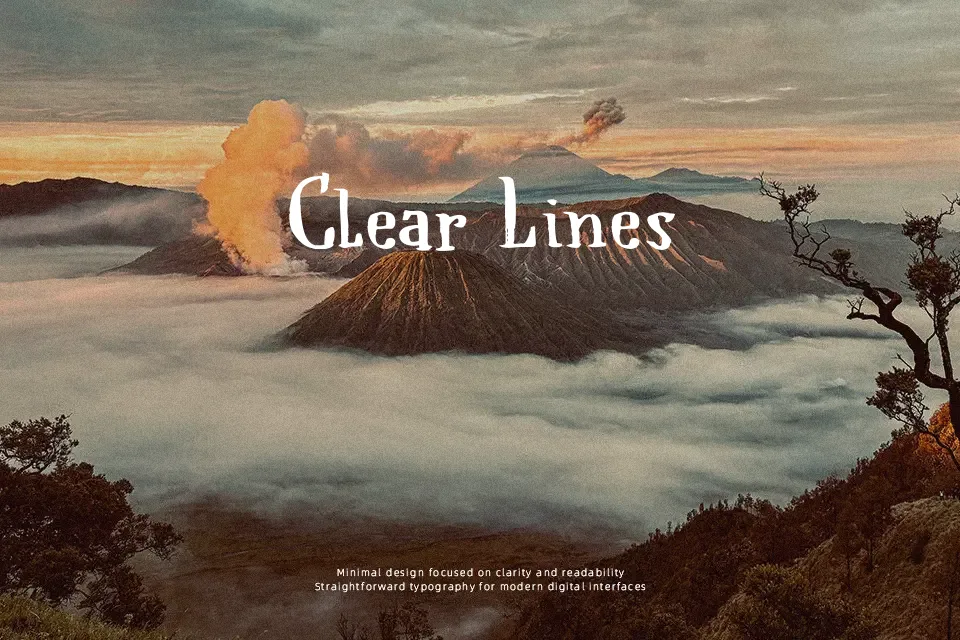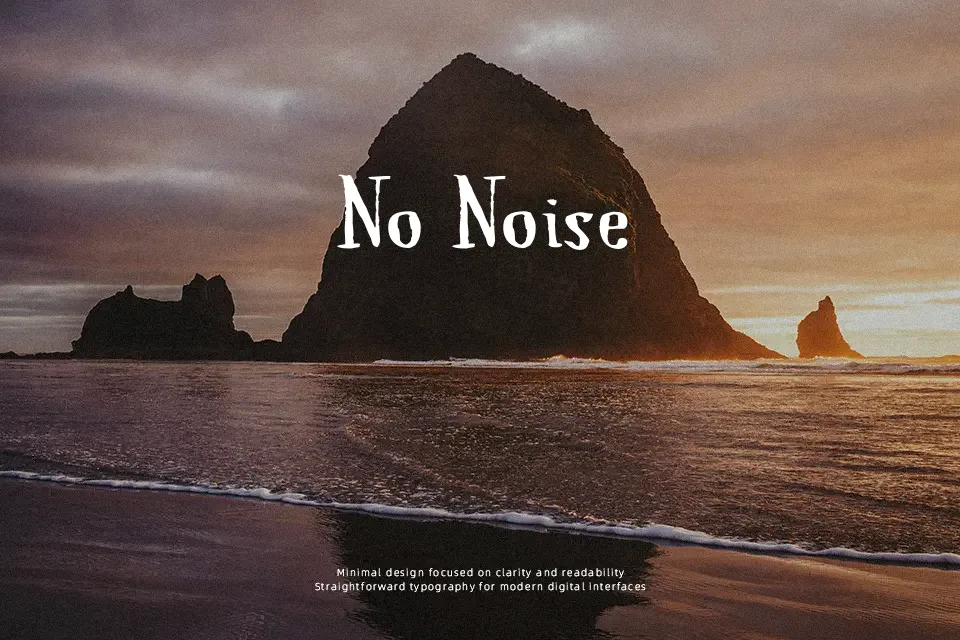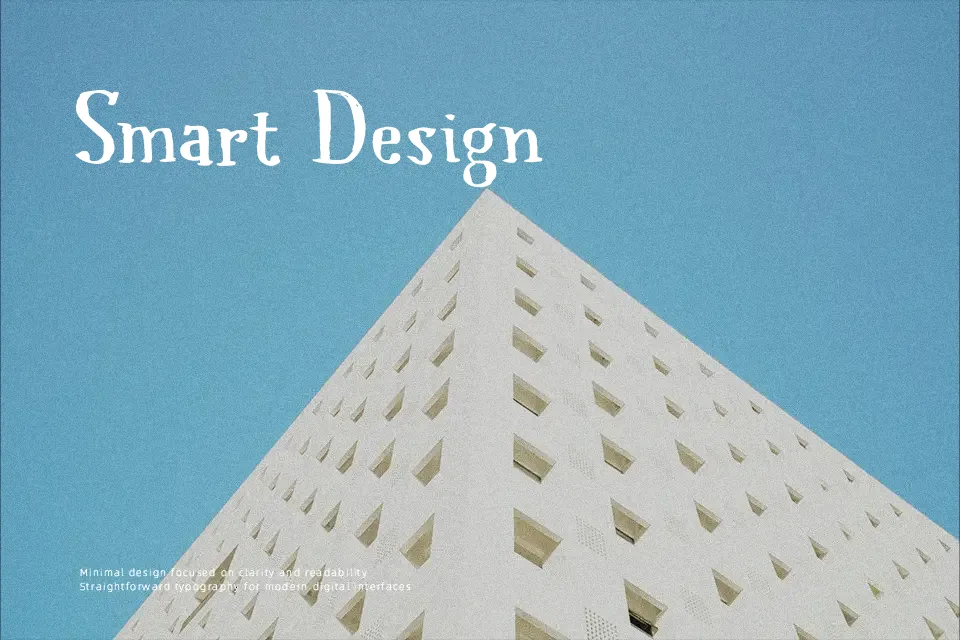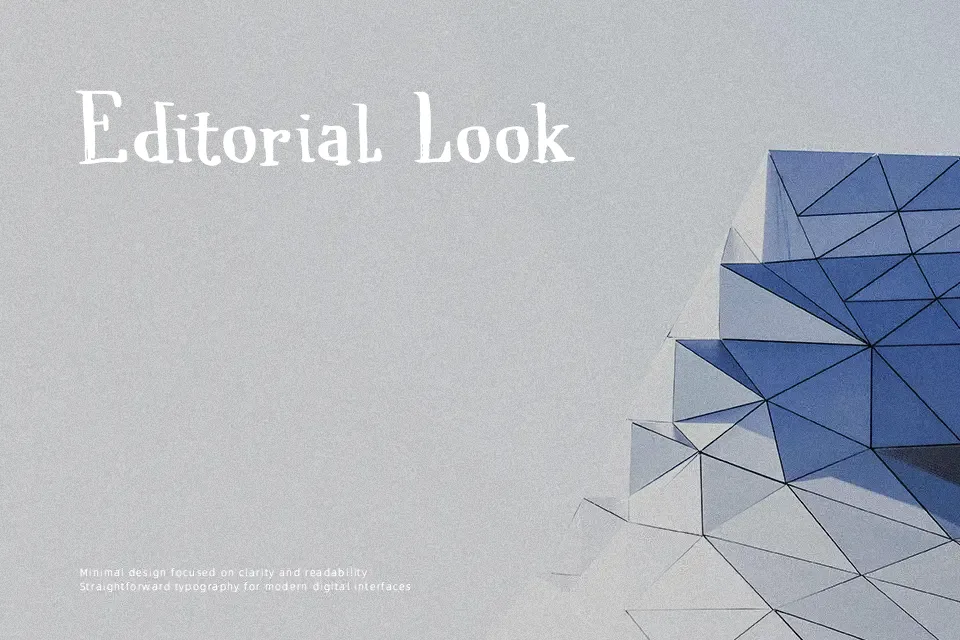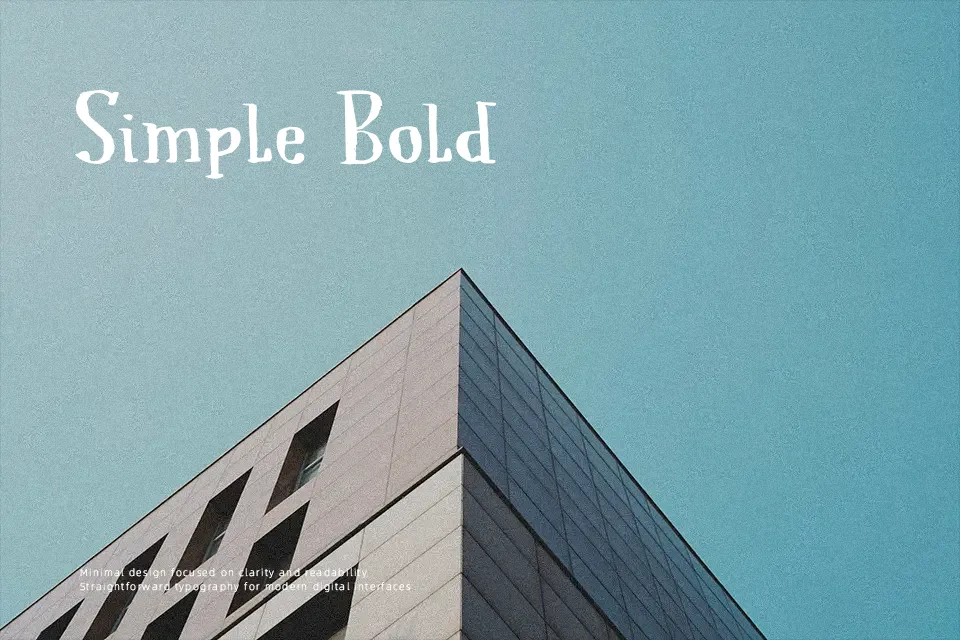
Cadora Woods Font
Cadora Woods is a distressed display typeface that mimics hand-cut wood letters, with thick, irregular strokes, rugged edges, and slightly cramped counters that build a dense, textured word shape. It sits firmly on the decorative side: bold, noisy, and a bit unsettling rather than clean or neutral, so it immediately pulls the eye in a layout. Use it for horror or mystery posters, Halloween packaging, escape room branding, moody game logos, or any project that needs a scratched, timber-like headline rather than a polite title. It tends to overpower small sizes and long paragraphs, so it works much better as a short, punchy heading than as supporting copy or UI text.
horror or thriller posters and key art
Halloween event branding and seasonal packaging
indie game or escape room logos needing a carved wood look
dramatic social media title graphics with a rough texture
body text or long reading passages at small sizes
clean corporate branding or minimalist interfaces
formal editorial layouts that need subtle typography
highly legible signage viewed from a distance
Perfect for branding, gaming, and halloween, with a bold and decorative style.